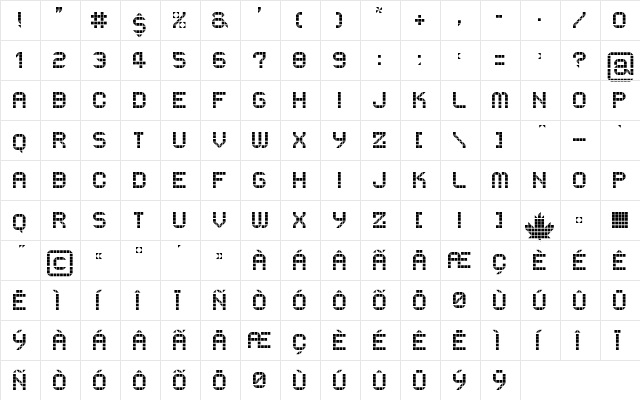
BDBrick VANOC Regular
Design Context for BDBrick VANOC Typeface
BDBrick VANOC is a composed and adaptable typeface that performs quietly and consistently across a wide range of design contexts.